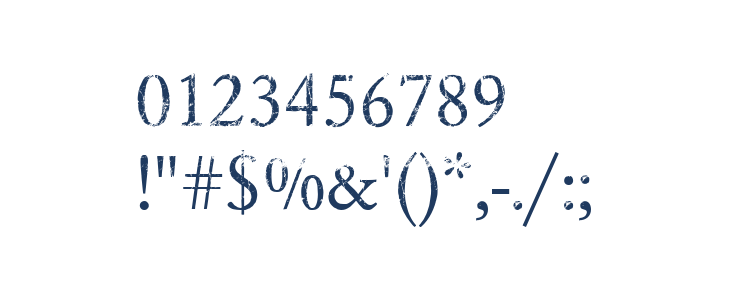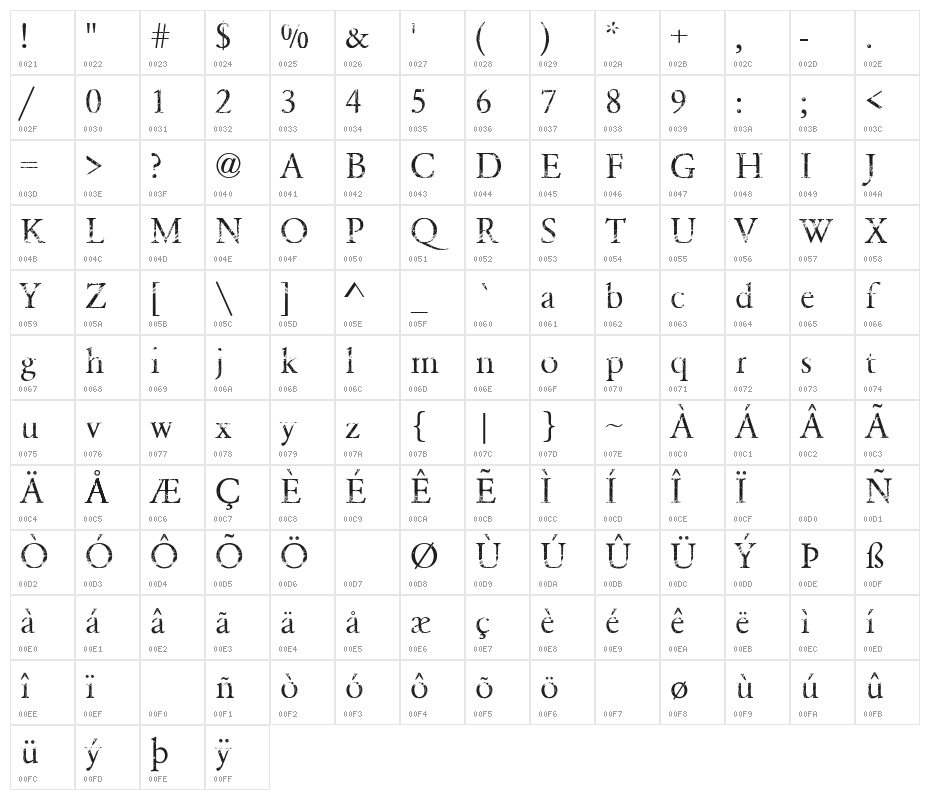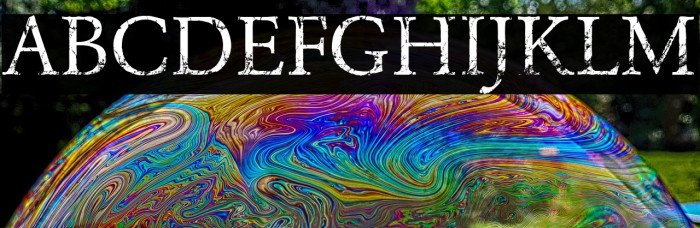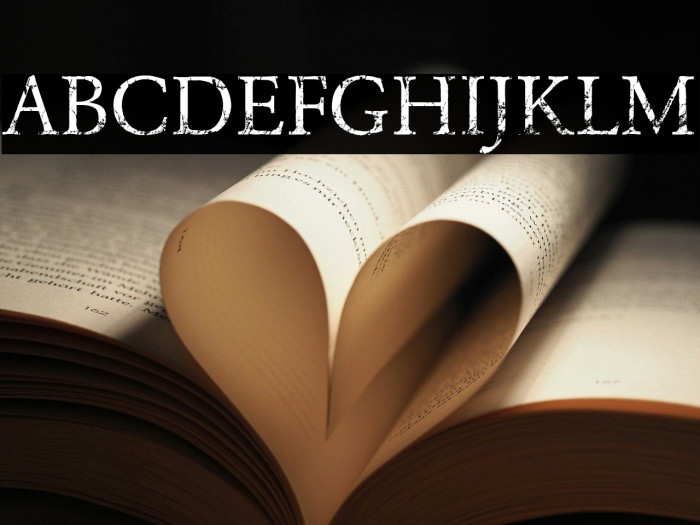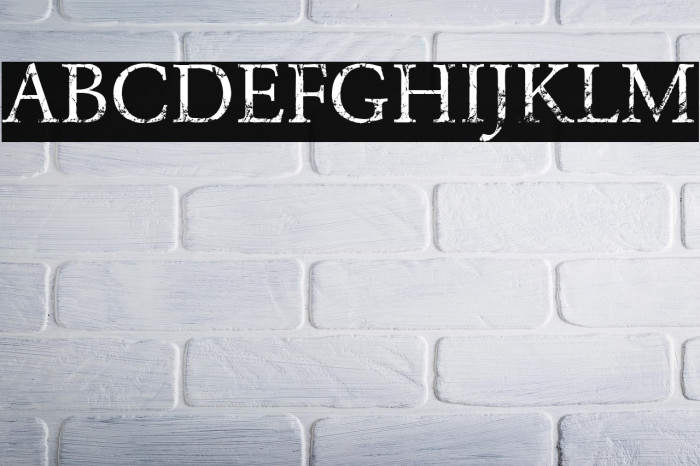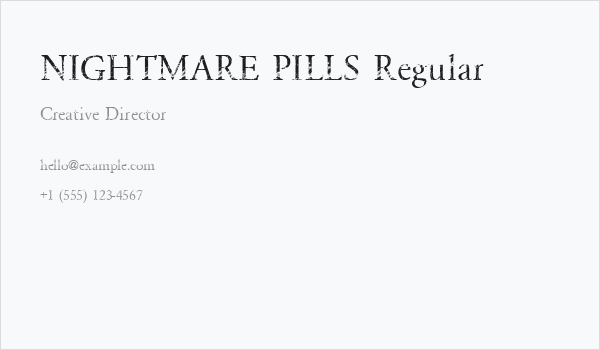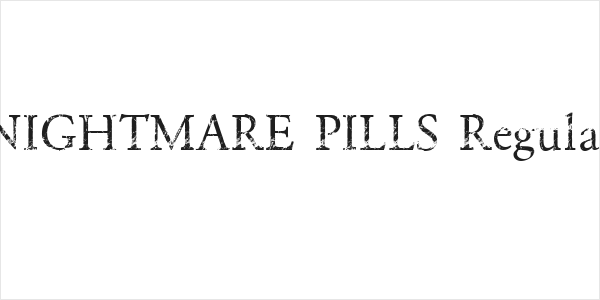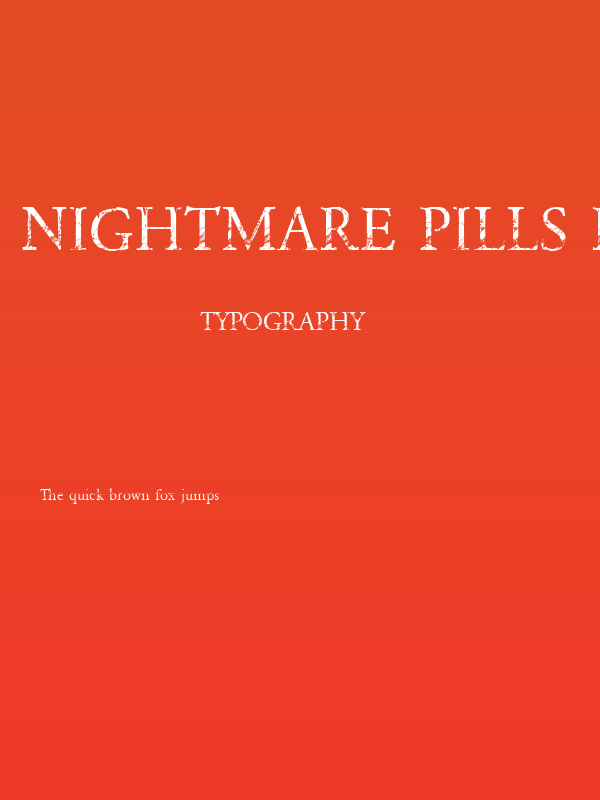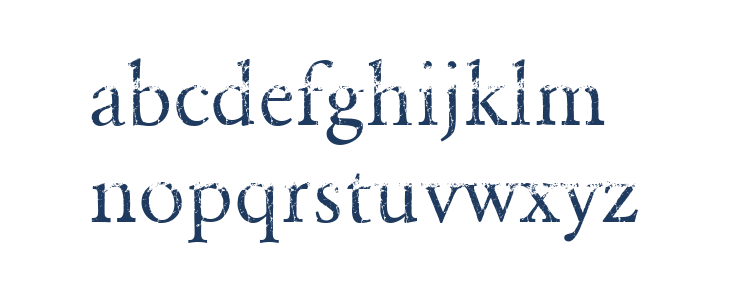
NIGHTMARE PILLS Regular Font
NIGHTMARE PILLS Regular Description
This font features a distressed, grunge style with a textured appearance that gives it a worn, vintage look. The uppercase and lowercase letters maintain a consistent serif structure, while the numbers and special characters follow the same design ethos, adding to the overall cohesive feel. The texture appears as if the letters have been eroded or scratched, providing a unique and edgy aesthetic. This font is ideal for projects that require a rugged or antique vibe, such as horror-themed designs, vintage posters, or album covers. The serif elements add a touch of classic elegance, contrasting with the rough texture to create a striking visual impact.
| Proposed Projects | Ideal for horror-themed designs, vintage posters, album covers, and edgy branding. |